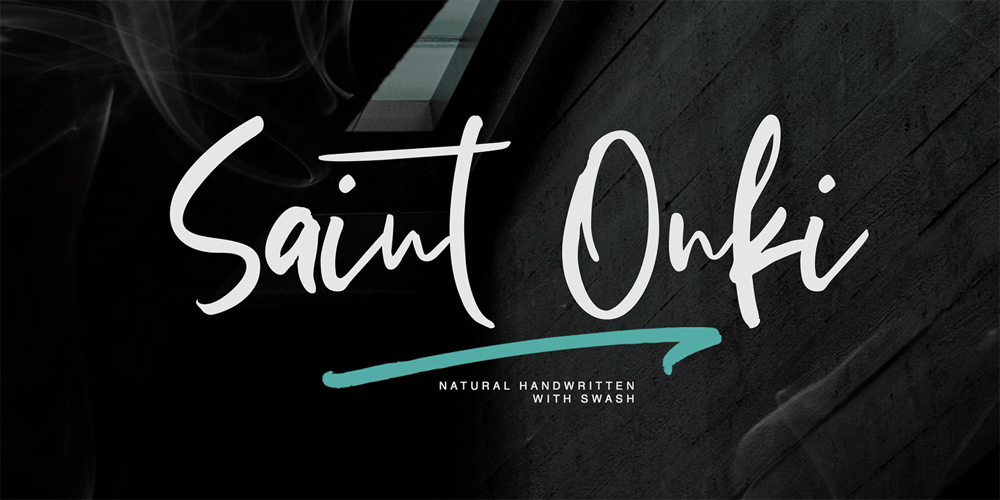
Saint Onki
Saint Onki font
Saint Onki Font Family was designed by Eko Kurniawan and published by Atom. Saint Onki contains 5 styles and family package options. Saint Onki is a natural brush font with 4 styles that will give a casual impression to your design. With stylistic sets and original handmade quality, your design will stand out more.You will get Saint Onki Regular Saint Onki Italic Saint Onki All Caps Bold Saint Onki Swash Hope you like it with this font. Have a great day and happy buying.